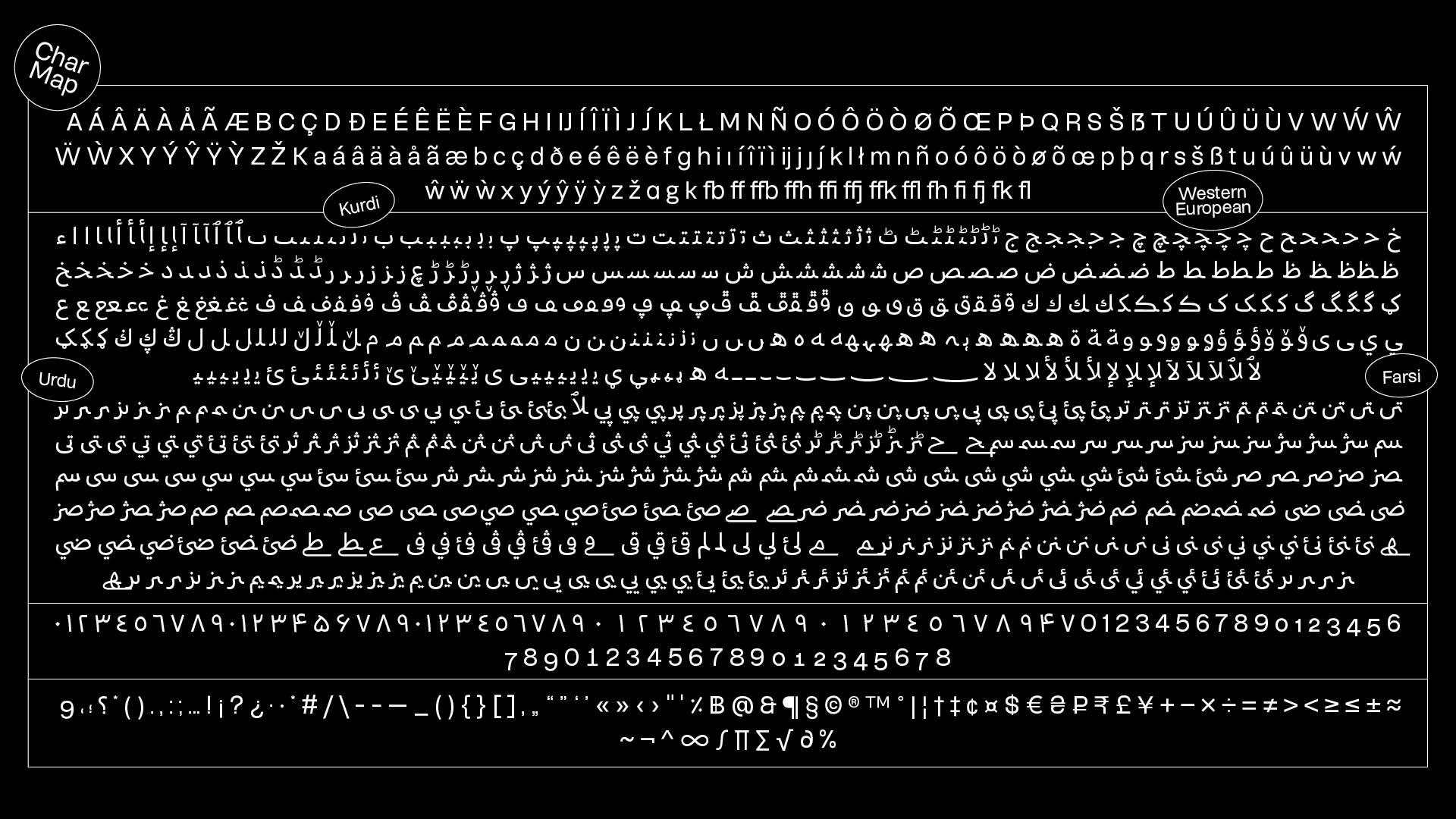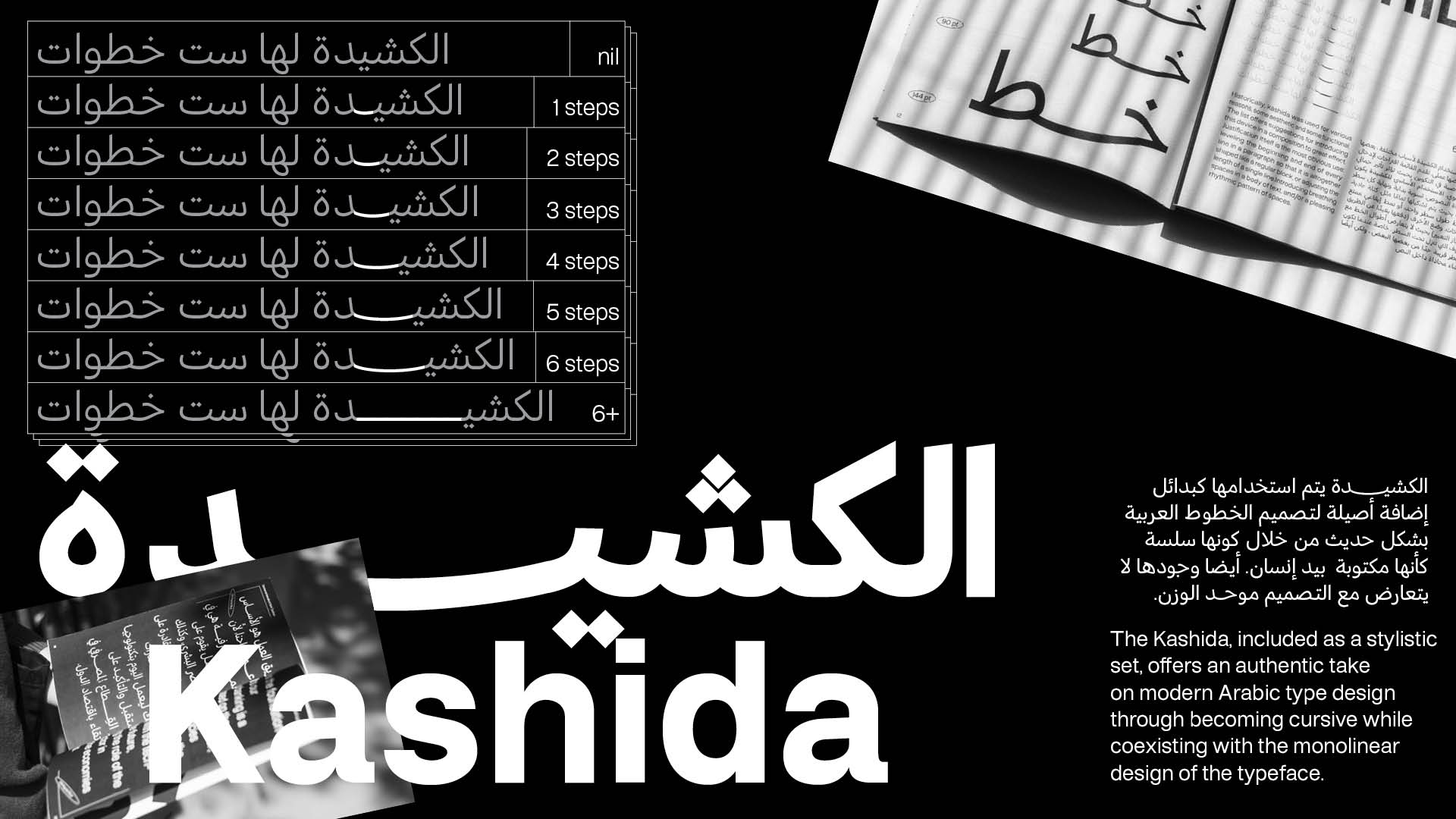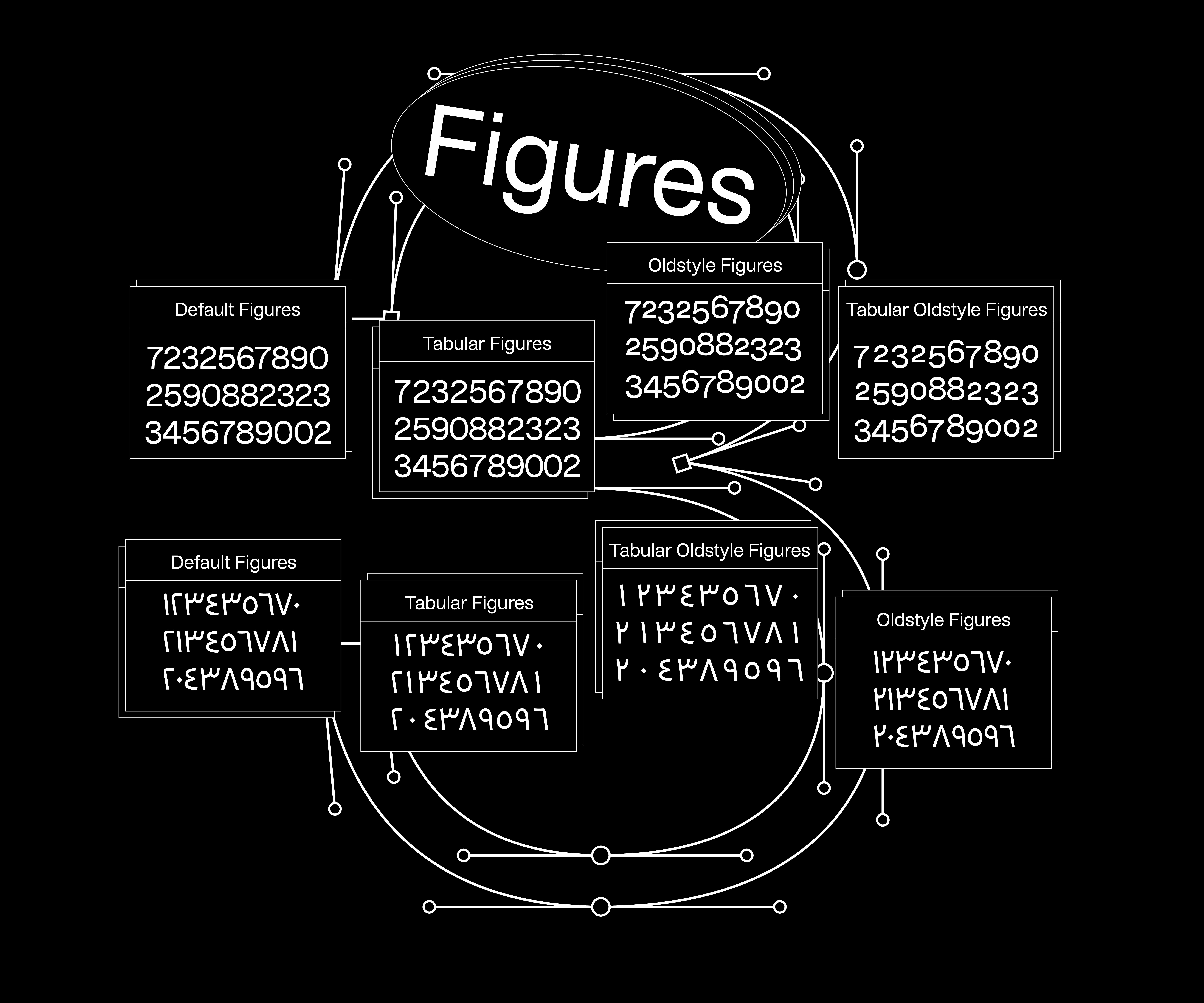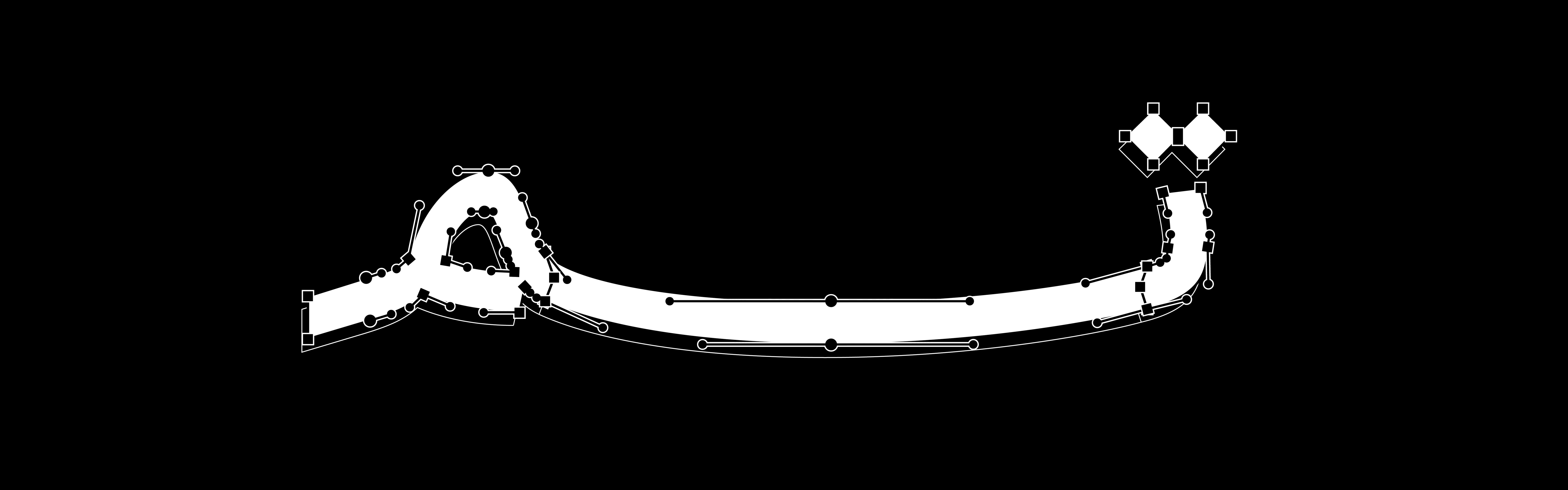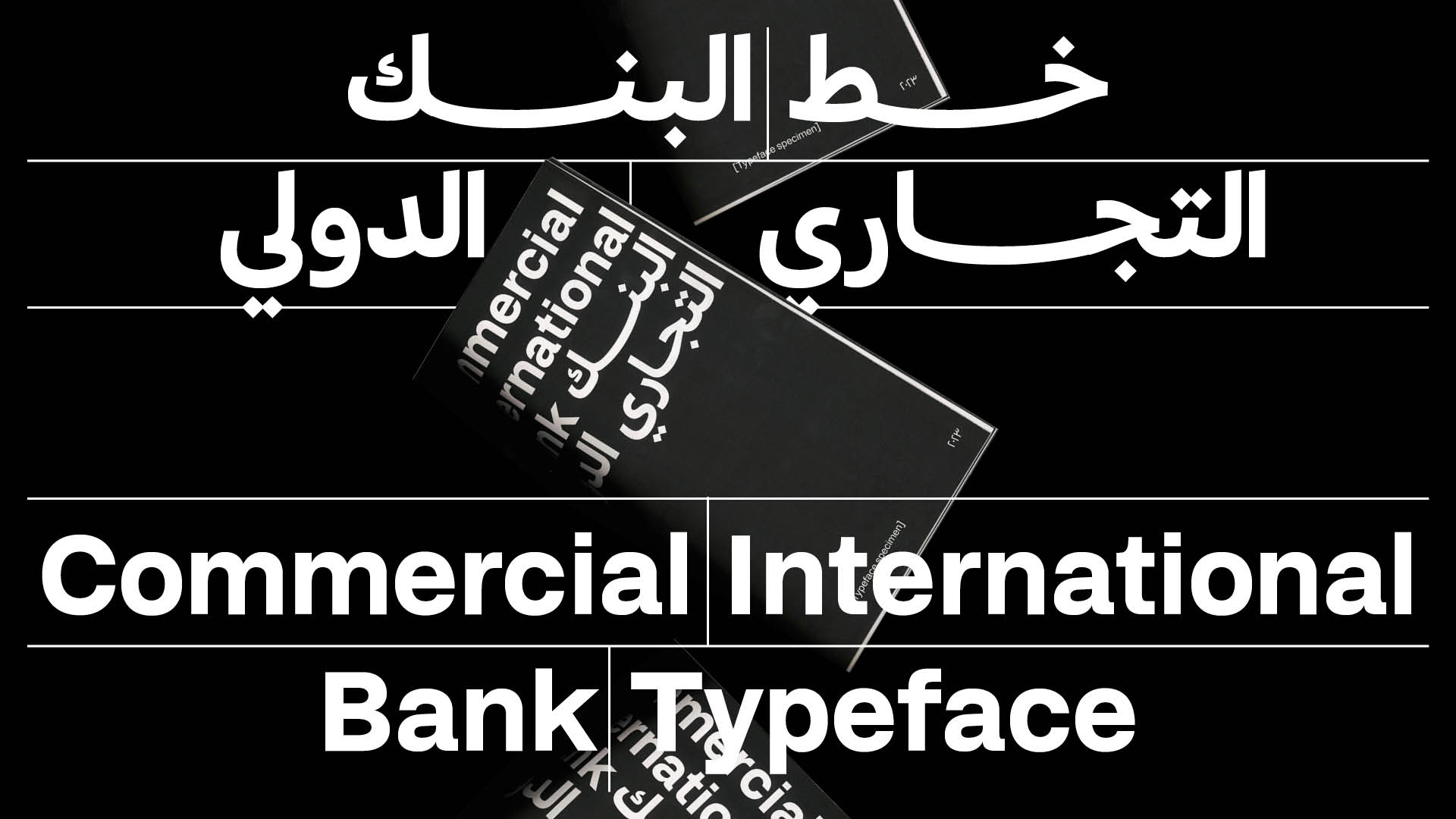
CIB
the multi-script typeface designed for CIB is monolinear , sans serif with multiple weights including italics for a flexible use across different mediums, CIB typeface is legible and usable for small text, however it does contain stylistic features for display type settings. In Collaboration with Boharat Type